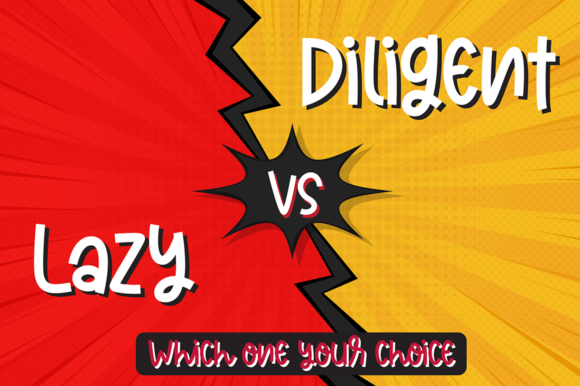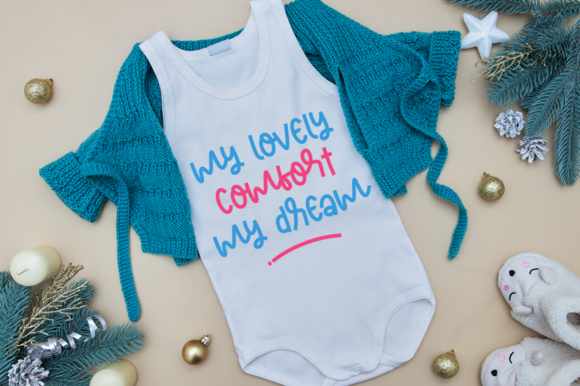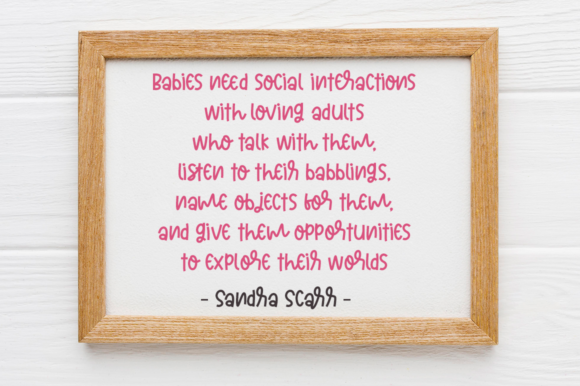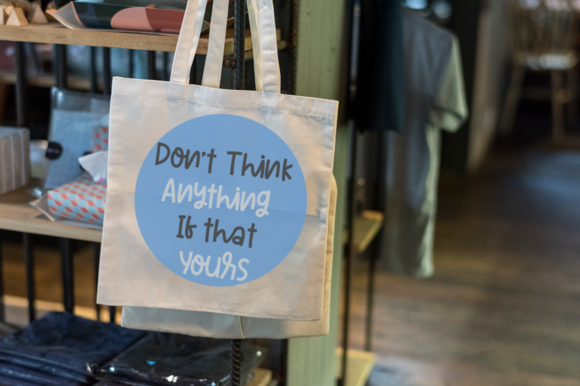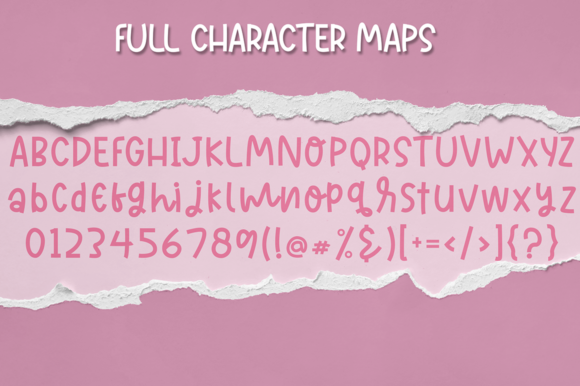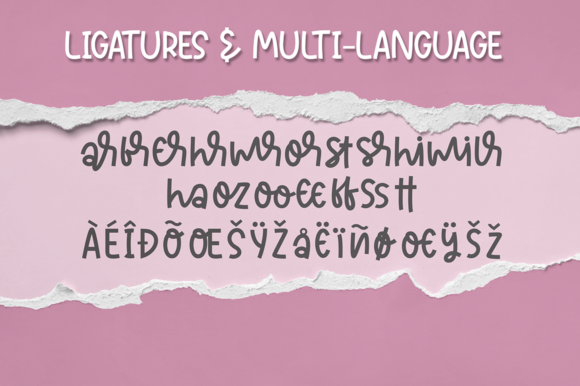
Baby Bloom Font: Add a Touch of Whimsy to Your Designs
Are you looking for a font that exudes childlike playfulness and innocence? Look no further than the Baby Bloom font! This adorable handwritten font is perfect for designers and crafters who want to add a touch of whimsy to their projects. In this article, we’ll dive into the features and benefits of Baby Bloom, and explore how you can use it to brighten up your designs.
What is Baby Bloom Font?
Baby Bloom is a cute handwritten font that is designed to capture the essence of childhood. Its playful and carefree vibe makes it perfect for kids and school projects, as well as any design that requires a touch of innocence and wonder. The font is meticulously crafted to ensure that it is both legible and visually appealing, making it a great addition to any designer’s toolkit.
Features of Baby Bloom Font
So, what makes Baby Bloom font so special? Here are just a few of its key features:
- Cute and Playful Design: Baby Bloom font is designed to be adorable and fun, making it perfect for projects that require a childlike touch.
- PUA Encoded: This font is PUA (Private Use Area) encoded, which means that you can access all of the glyphs and swashes with ease. This makes it easy to customize your designs and add your own personal touch.
- Handwritten Style: Baby Bloom font has a beautiful handwritten style that adds a touch of personality to any design.
- Legible and Readable: Despite its playful design, Baby Bloom font is still highly legible and readable, making it perfect for body text and headings.
How to Use Baby Bloom Font
So, how can you use Baby Bloom font in your designs? Here are just a few ideas to get you started:
- Kids and School Projects: Baby Bloom font is perfect for kids and school projects, such as posters, flyers, and worksheets.
- Crafting and Scrapbooking: This font is also great for crafters and scrapbookers who want to add a personal touch to their projects.
- Digital Designs: Baby Bloom font can be used in digital designs, such as social media graphics, blog posts, and email newsletters.
- Print-on-Demand: You can also use Baby Bloom font for print-on-demand products, such as t-shirts, mugs, and tote bags.
Benefits of Using Baby Bloom Font
So, why should you choose Baby Bloom font for your designs? Here are just a few benefits:
- Unique and Eye-Catching: Baby Bloom font is a unique and eye-catching font that will help your designs stand out from the crowd.
- Easy to Use: This font is easy to use and customize, even for designers who are new to font usage.
- Versatile: Baby Bloom font can be used in a wide range of designs, from kids and school projects to digital designs and print-on-demand products.
- High-Quality: This font is high-quality and carefully crafted to ensure that it is both legible and visually appealing.
In conclusion, Baby Bloom font is a cute and playful handwritten font that is perfect for designers and crafters who want to add a touch of whimsy to their projects. With its PUA encoding, cute design, and versatility, this font is a great addition to any designer’s toolkit. Whether you’re working on kids and school projects, digital designs, or print-on-demand products, Baby Bloom font is sure to bring a smile to your face and a touch of magic to your designs.